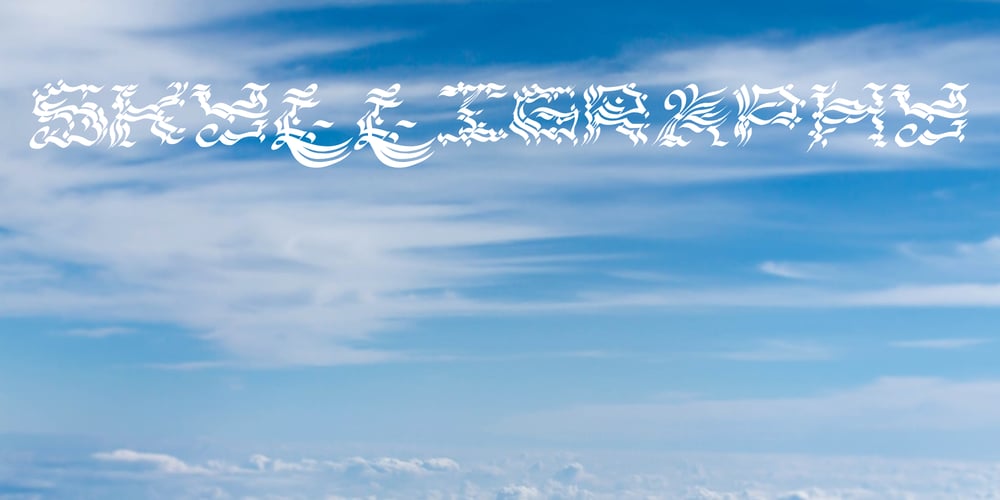
Skylligraphy
Skylligraphy font
Skylligraphy Font Family was designed by Garin McInnis and published by Urge Fountain. Skylligraphy contains 1 styles and family package options. This is a unique approach to calligraphy if you’re looking for deep and sharp style. Skylligraphy Regular.